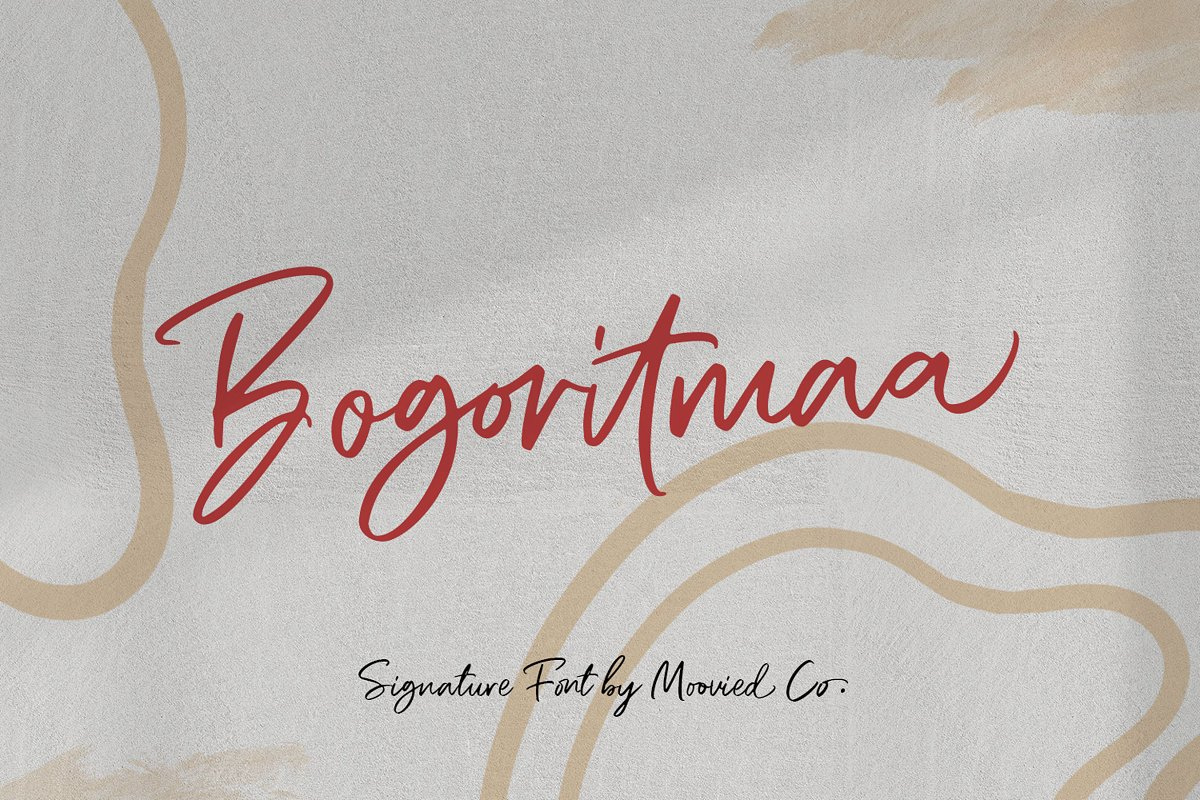
Bogoritmaa Signature Font
The Bogoritmaa Signature Font excels in sophisticated design applications including personal branding, boutique logos, artisan product packaging, elegant wedding invitations, luxury business cards, creative portfolios, handwritten letters, social media quotes, blog headers, and premium brand identities. Its distinctive signature style makes it perfect for projects requiring authentic handwritten elegance that communicates personality and establishes genuine connection with audiences seeking human touch in digital communications.
What makes the Bogoritmaa Signature Font genuinely exciting is its exceptional ability to capture the natural rhythm and flow of confident handwriting. The font features smooth, connected strokes with organic variations that create an incredibly authentic signature appearance. Each letterform displays unique character traits, from graceful ascenders to elegant descenders, while maintaining consistent readability. The font's sophisticated curves and natural letter spacing give text a luxurious, hand-penned quality that elevates any design project.
The Bogoritmaa Signature Font family typically includes regular weight with comprehensive character sets, featuring uppercase and lowercase letters, numerals, punctuation, and international glyphs. The typeface often incorporates stylistic alternates, contextual ligatures, and decorative swashes that enhance its signature authenticity. These additional characters provide designers with creative flexibility to achieve more natural-looking handwritten effects and customize text appearance for specific design needs.
This premium signature font captivates users through its remarkable versatility and refined aesthetic appeal. Unlike rigid digital fonts, Bogoritmaa Signature Font maintains the beautiful imperfections and personality of genuine handwriting while ensuring professional results across various applications. The font's elegant character makes it ideal for luxury brands, personal projects, and creative endeavors where sophistication and authenticity are paramount to success.